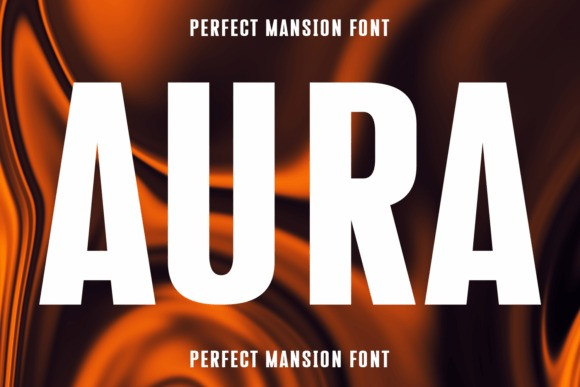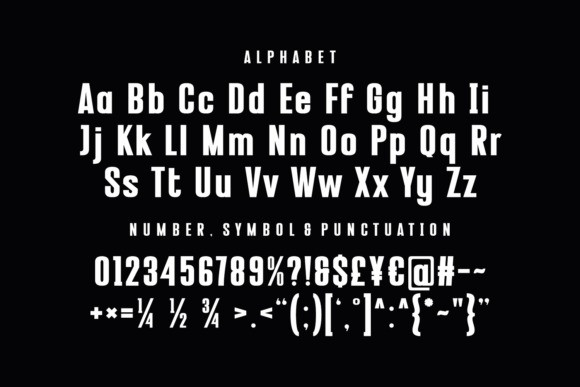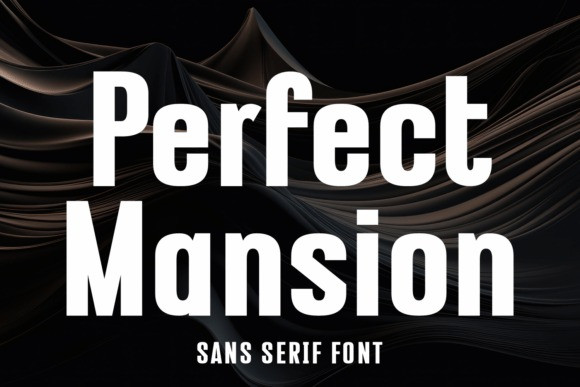
Perfect Mansion Font Engineered with singular precision, it excels as a headline font, showcasing a neatly readable condensed style. The fluidity of this variable font makes it versatile as a logo or packaging design element, refracting contemporary charm with its classic sans serif and bold slant compositions. This exceptional font graces your brand logo with an extra edge, and elevates your flyer design efforts into a new realm. Being a digital font, it effortlessly instills a modern, fresh, and clean aesthetic in editorial and magazine layouts. Perfect Mansion isn’t just a font, it’s an expression of modern design ethos blending informal softness and stark legibility. This contemporary monospace embodies smoothness, easily adaptable for web design, and showcases superior design versatility in all print manifestations. Harness the essence of this extraordinary font and take your design palette to the next level!